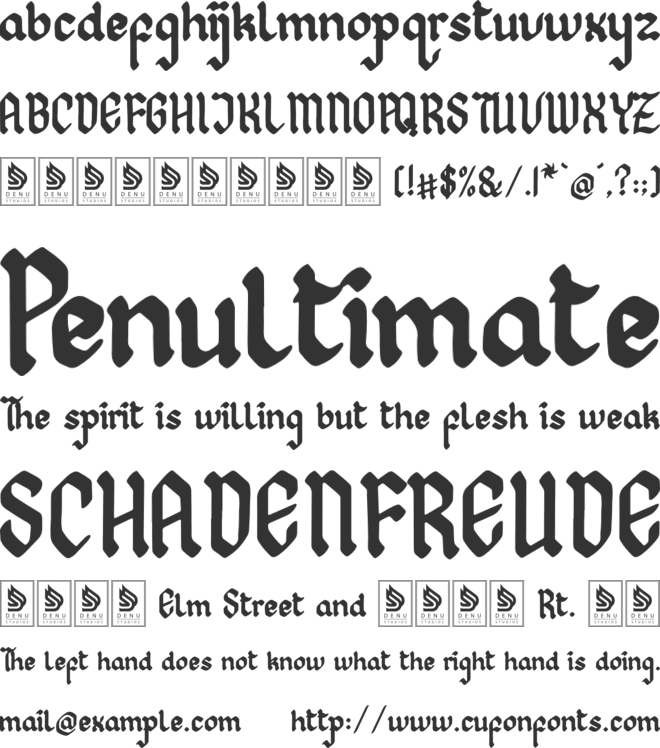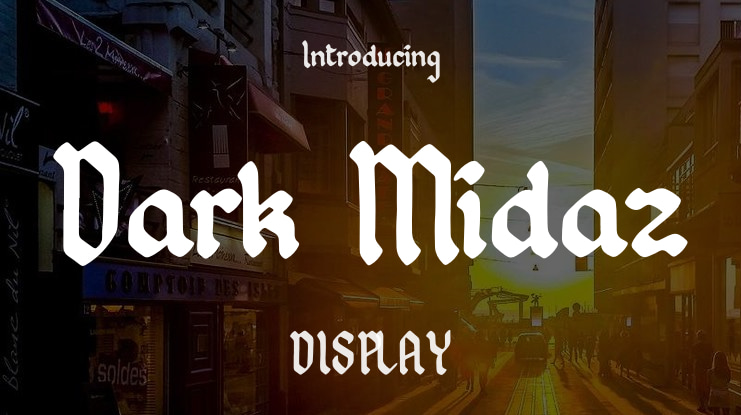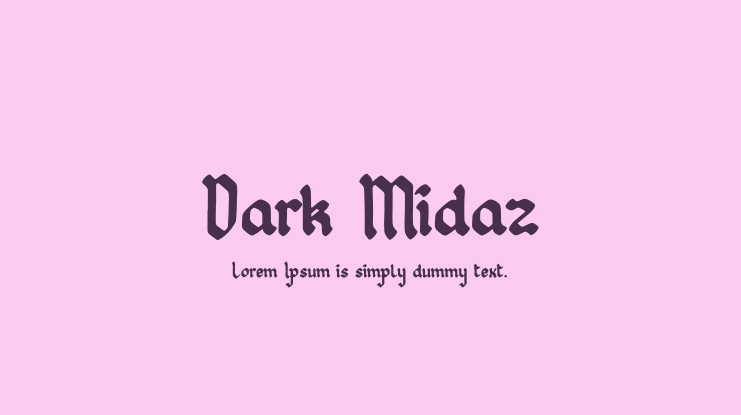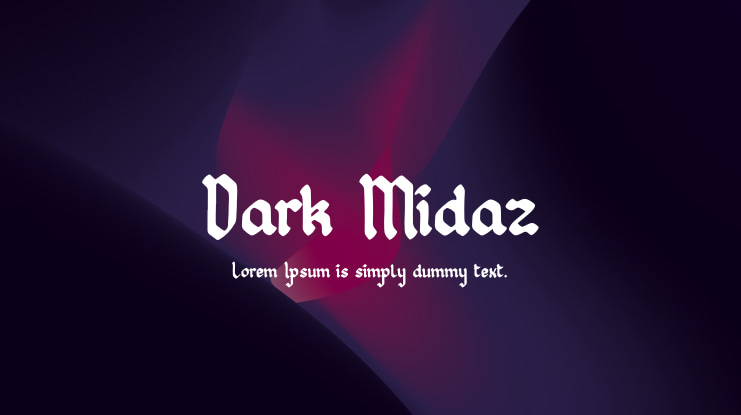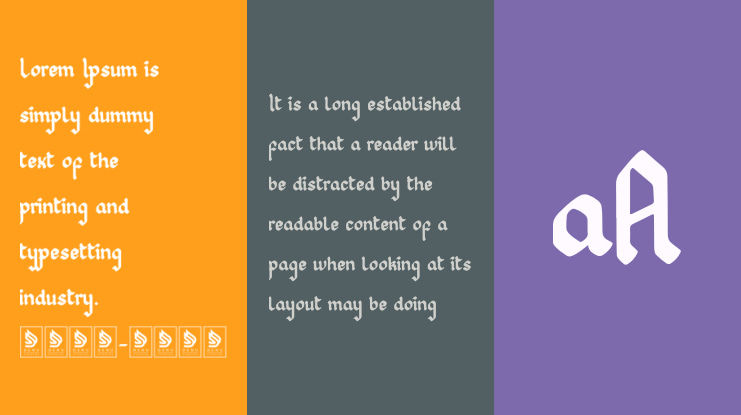
Dark Midaz Font
Dark Midaz | Blackletter Typeface is a versatile font suitable for a variety of projects, including logos, branding, homeware designs, product packaging, mugs, quotes, posters, shopping bags, t-shirts, book covers, name cards, invitation cards, greeting cards, labels, photography, watermarks, special events, and many other creative projects that require a Blackletter Typeface touch.